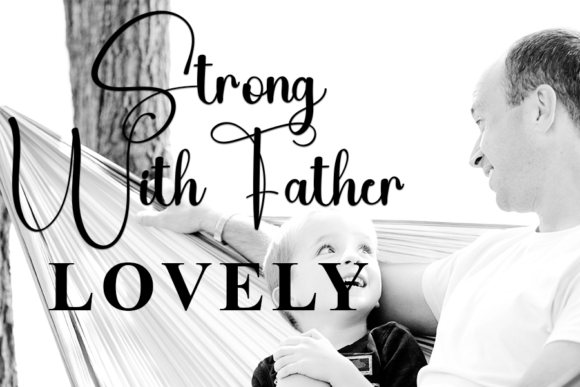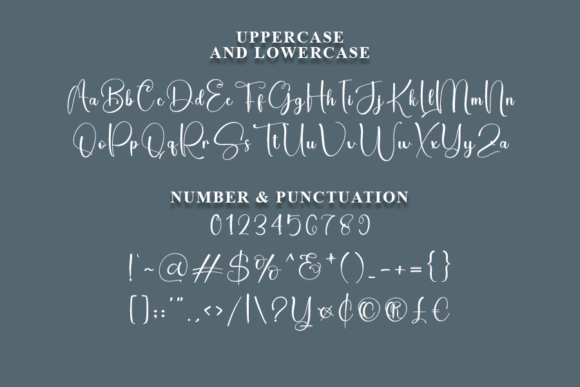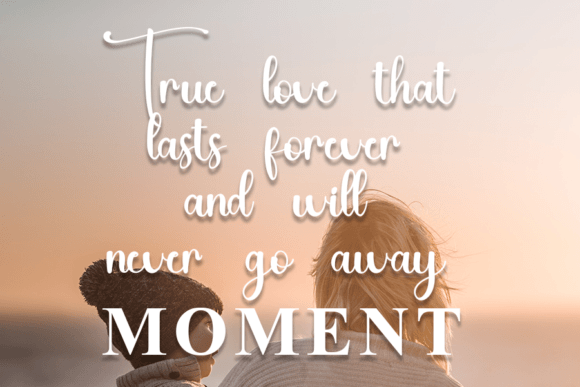
Introduction to Parenting Font
As a designer, you’ve likely found yourself in the midst of a creative project, scouring the web for the perfect font to bring your vision to life. Perhaps it’s a wedding invitation, a logo for a new business, or a social media post that demands attention. Whatever the project, the right font can make all the difference. And that’s where the Parenting Font comes in – a beautiful, refined script font that exudes elegance and sophistication.
With its classy, modern look, the Parenting Font is a valuable resource for designers seeking to elevate their creative projects. Whether you’re working on a design from scratch or looking to enhance an existing one, this font is sure to impress. Plus, its transparent background makes it easy to layer and customize, giving you complete creative control.
Key Features of Parenting Font
- High-quality design: Parenting Font is a premium, professionally designed font that can elevate any creative project.
- Unique design elements: Parenting Font features unique design elements, including custom letterforms and creative flourishes, that can add a personal touch to any design.
Honest Review: Parenting Font
I recently had the chance to work with the Parenting Font, and I must say it’s been an interesting experience. As a designer, I’m always on the lookout for high-quality design resources that can help elevate my creative projects.
- The Parenting Font is incredibly versatile and can be used for a wide range of designs, from posters to social media graphics.
- The font’s limited character set can make it difficult to use for longer text-based designs.
- The font’s style may not be suitable for all types of creative projects.
Overall, I’d say the Parenting Font is a solid design resource that can be a great addition to your toolkit. While it has some limitations, its high quality and free availability make it a worthwhile download for designers working on a variety of creative projects.
Parenting Font
The Parenting Font is a high-quality design resource ideal for creative projects that require a unique and emotive touch. This free download offers a transparent background, making it versatile for various design applications.
The Parenting Font is perfect for various design projects, including parenting blogs, family-themed websites, and social media campaigns. Its emotive and emotive design makes it ideal for conveying love, care, and support.